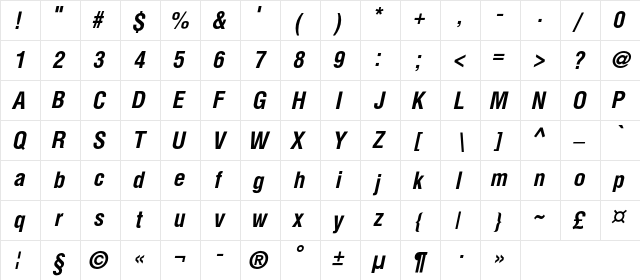
HeliosCondC Bold Italic Font Preview
Design Context for HeliosCondC Typeface
HeliosCondC offers clean, dependable letterforms without strong stylistic allegiance, making it a practical choice for designers who need flexibility. The dynamic lean of this cut emphasises speed and emphasis in any layout. Its bold stroke weight gives it real presence on the page. The condensed width makes it efficient for tight spaces without sacrificing legibility.
Pro Tip: Use HeliosCondC for emphasis, pull quotes, and subheadings where its slanted energy can add rhythm to the layout.